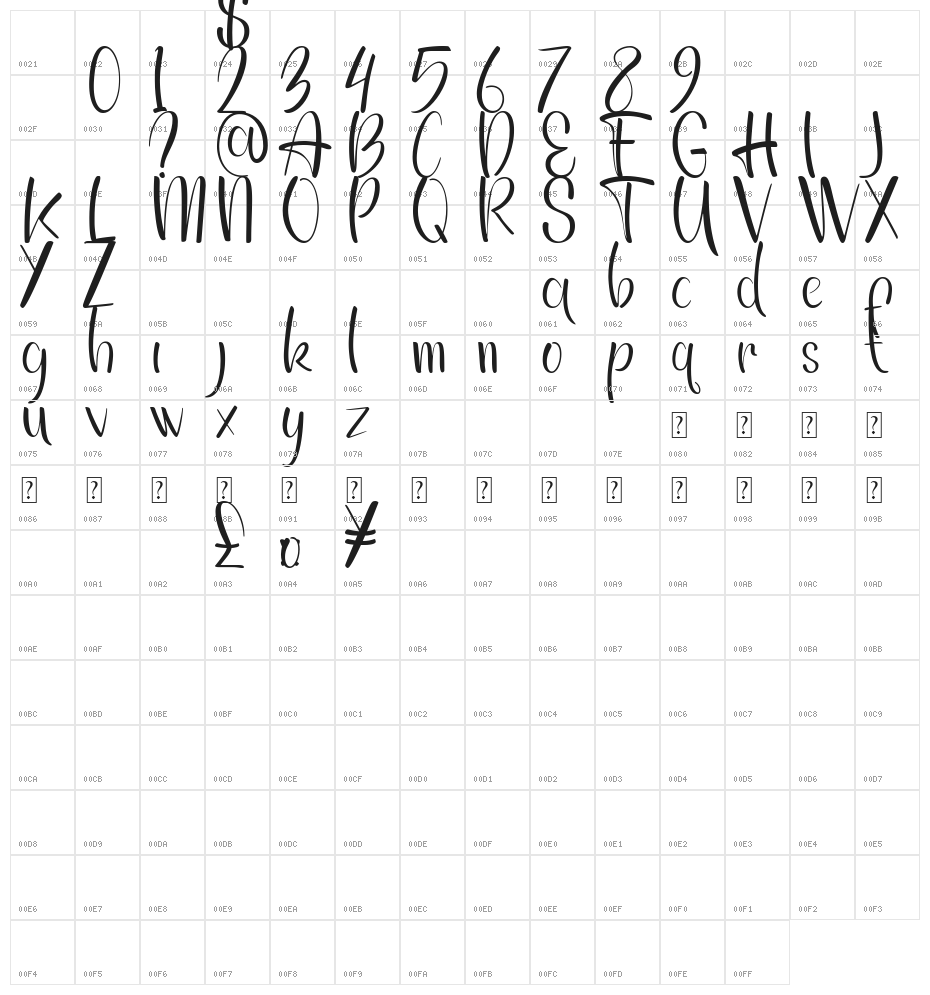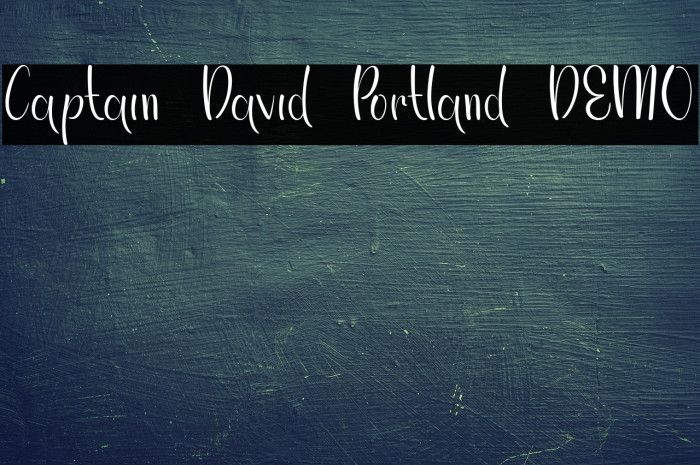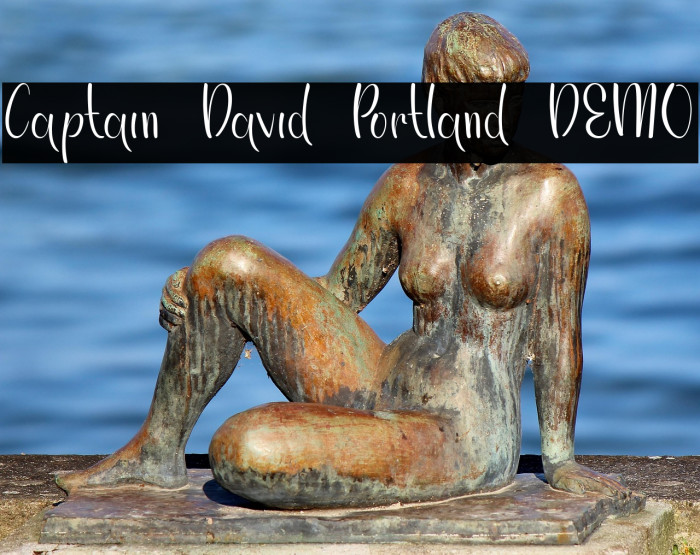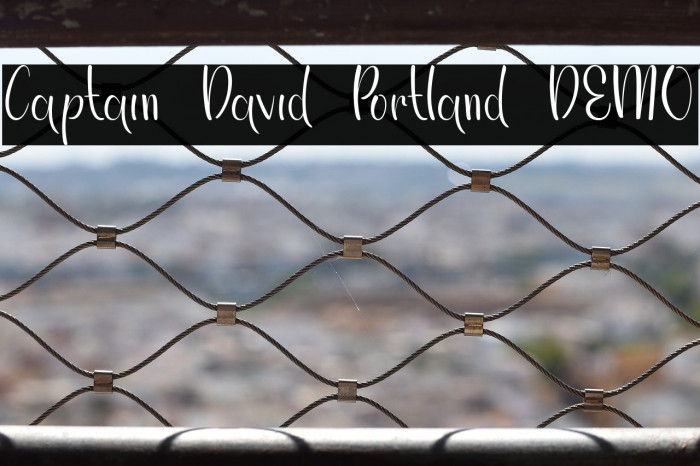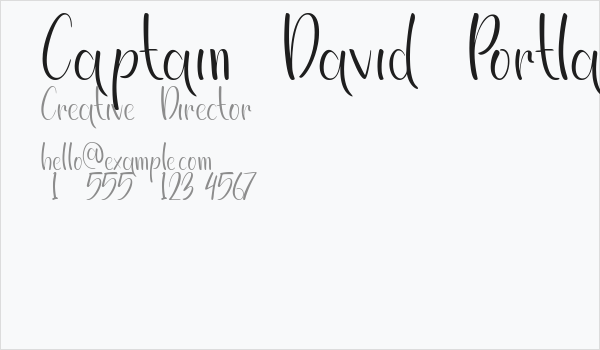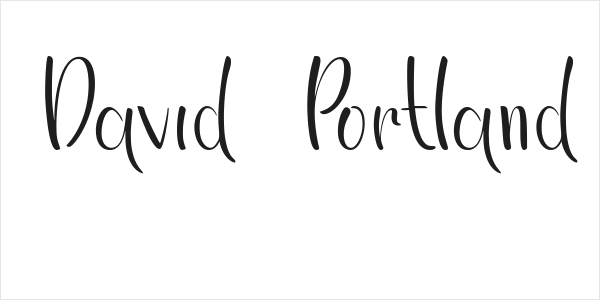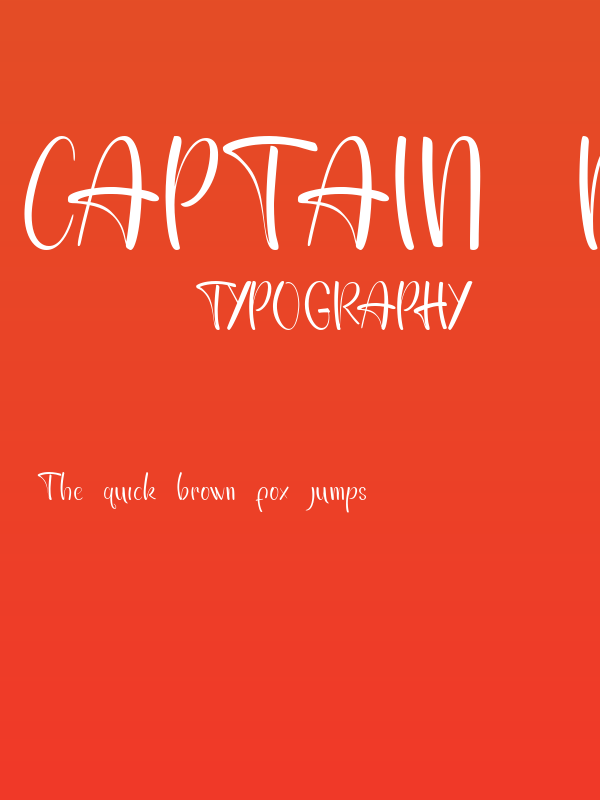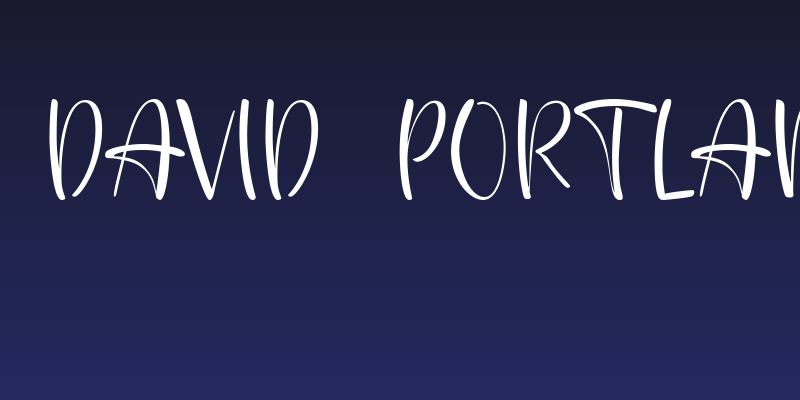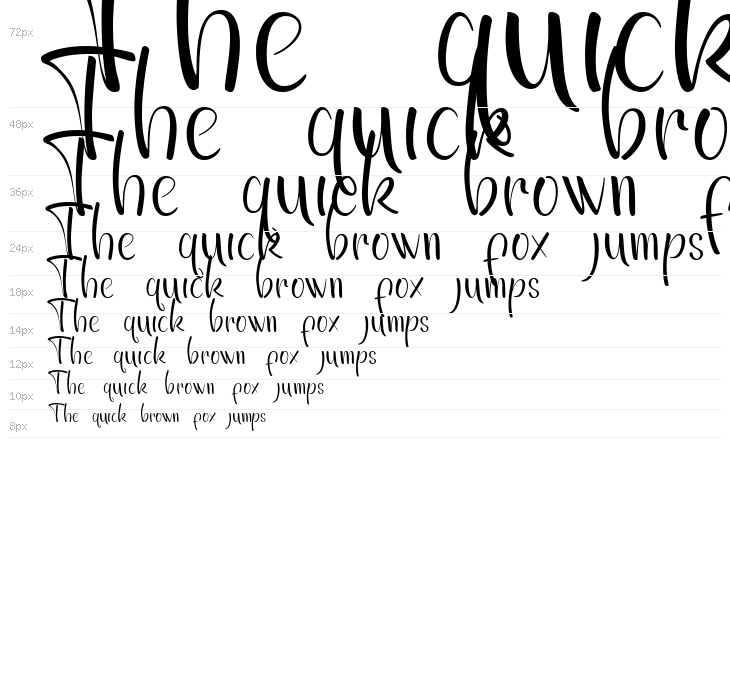
Captain David Portland DEMO Font
Captain David Portland DEMO Description
This font features a playful and energetic script style, characterized by its flowing, hand-drawn appearance. The uppercase letters are tall and slightly narrow, with a whimsical flair that adds a sense of movement and dynamism. The lowercase letters maintain a consistent style, with smooth curves and a casual, friendly feel. The numerals are bold and slightly elongated, matching the overall lively aesthetic. Special characters are integrated seamlessly, maintaining the font's cohesive look. This font is perfect for projects that require a personal touch, such as invitations, greeting cards, or branding materials that aim to convey a sense of fun and creativity.
| Proposed Projects | Ideal for invitations, greeting cards, and creative branding materials. |